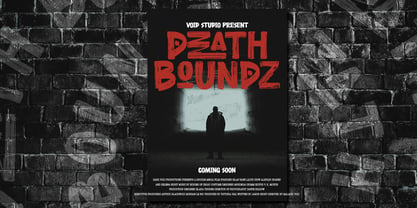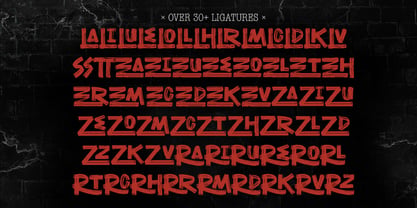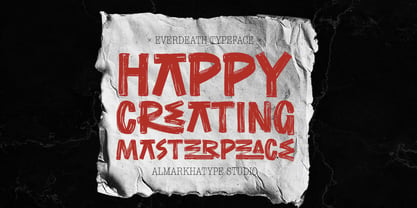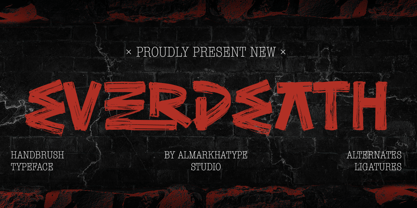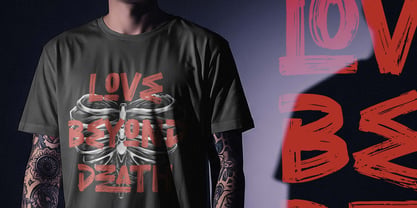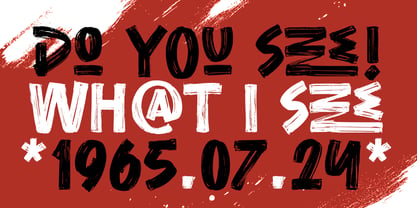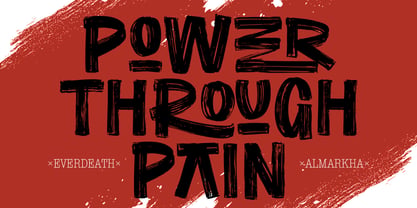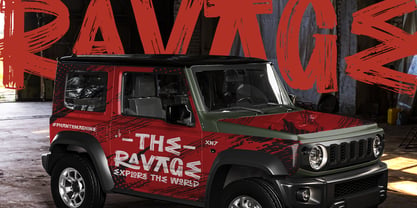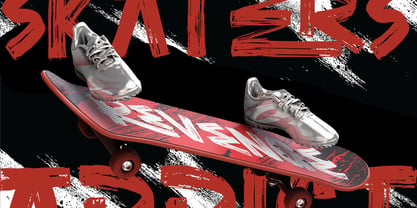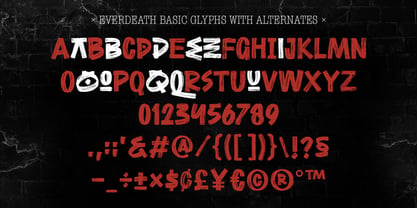
Everdeath
by Almarkha Type
The Everdeath Font Family was designed by Abdul Malik Wisnu and published by Almarkha Type. Everdeath contains 1 styles. More about this family
Everdeath is a bold and expressive handbrush typeface designed to deliver a raw, energetic, and rebellious look to your creative projects. Inspired by urban street art and rough brush strokes, this font captures the imperfect beauty of hand-painted lettering while maintaining strong readability and visual impact. With its roots in underground design culture, Everdeath is perfect for those looking to make a statement in their designs.
Designers: Abdul Malik Wisnu
Foundry: Almarkha Type